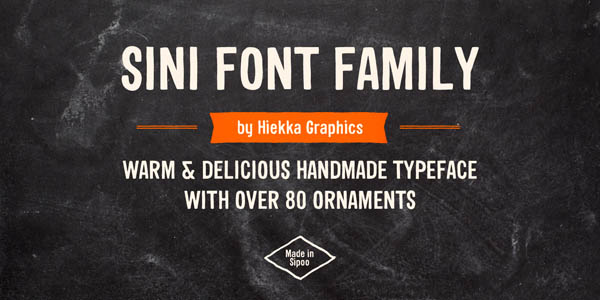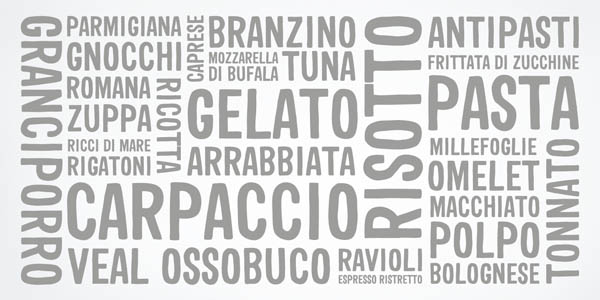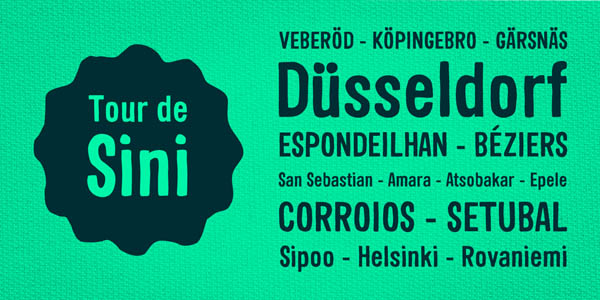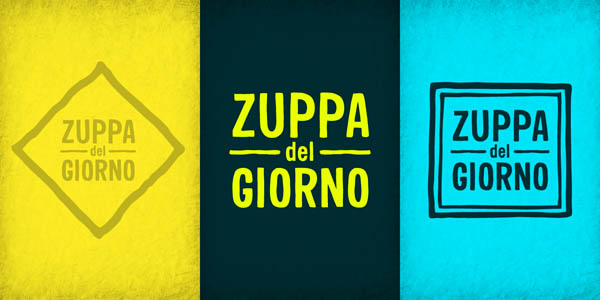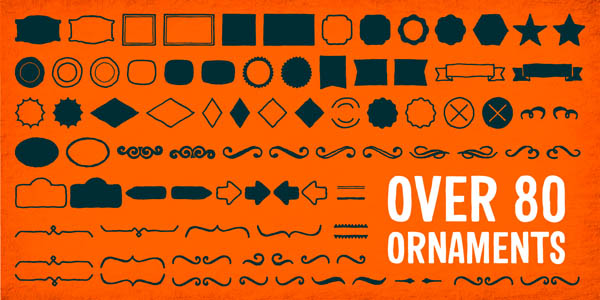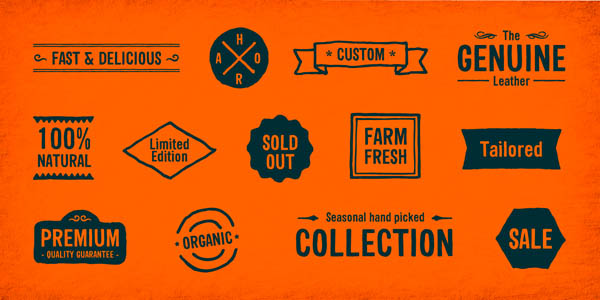
Sini – Handmade Typeface.
The Sini font by Hiekka Graphics has a warm hand lettered appearance. Sini also includes over 80 ornaments suitable to the bold typeface. This handmade typeface works great as display font for conspicuous slogans and headlines. Sini is available as Webfont and Desktop font.